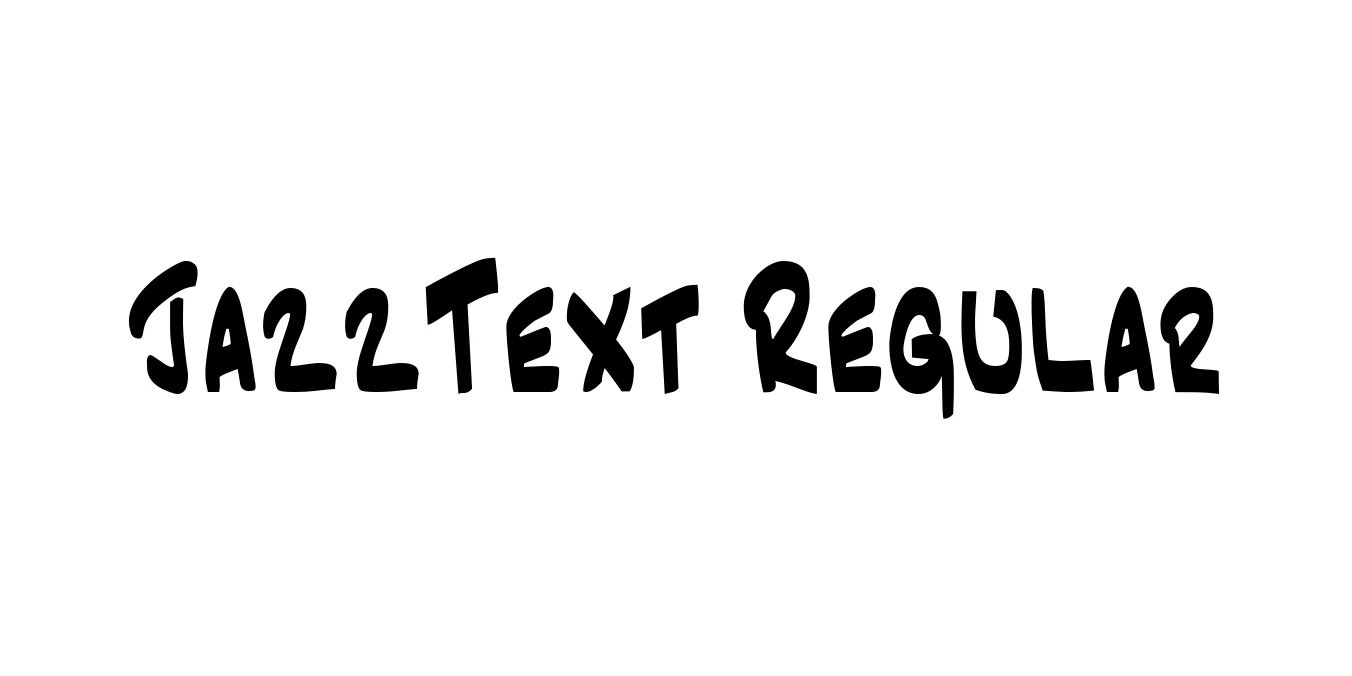
JazzText Regular
Designed by Rich Sigler (Sigler Music)
JazzText Regular was originally developed by Rich Sigler to complement the wider Jazz font family, specifically designed for use in professional music notation software like Finale and Sibelius. Its primary purpose was to replicate the authentic, hand-inked appearance of professional jazz charts and the legendary Real Book, offering a warm and humanistic alternative to standard, rigid digital engraving fonts.
Over the decades, JazzText has become a industry standard for arrangers, copyists, and music educators. Its unique blend of informal handwriting with high legibility makes it ideal for lead sheets, musical theatre scores, and instructional materials where a relaxed yet professional aesthetic is required to communicate musical phrasing and notation clearly.
JazzText Regular Best Uses
Creating authentic-looking jazz lead sheets and big band arrangements.
Perfect for music theory books and instrument method guides to provide a classic musician's feel.
Excellent for retro cafe menus, posters, or informal branding that requires a hand-drawn touch.